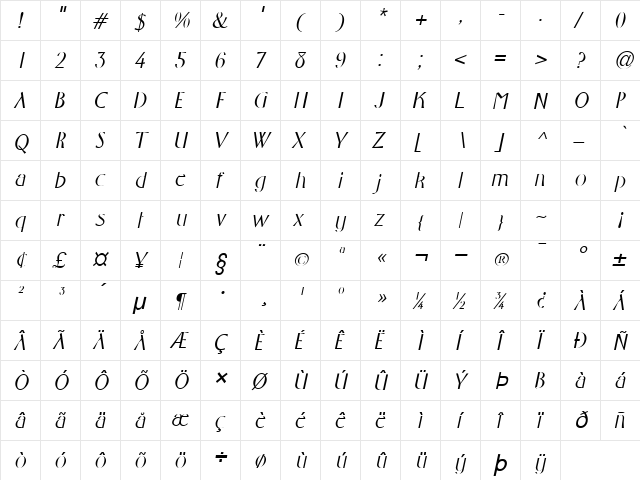
Wright Italic
Design Context for Wright Typeface
Wright takes a measured approach to typography — its balanced proportions and neutral character make it a reliable workhorse for both digital and print work. Its italic angle brings a sense of urgency and motion to the letterforms.